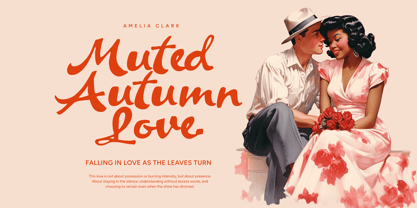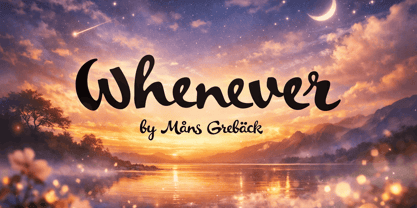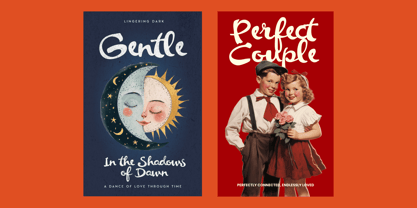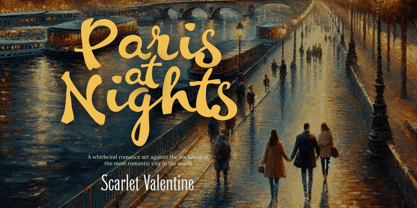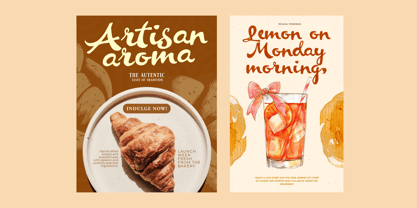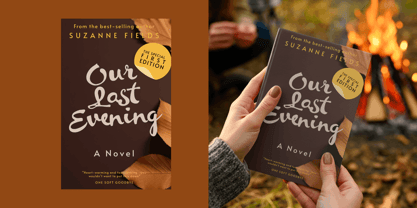
Whenever
by Mans Greback
The Whenever Font Family was designed by Måns Grebäck and published by Mans Greback. Whenever contains 4 styles and family package options. More about this family
Whenever is a relaxed handwritten script with a soft rhythm and an unforced flow. The letters lean gently forward, with rounded shapes and smooth joins that give the text a friendly, personal feel. Strokes are confident but never rigid, creating a balance between clarity and casual charm. There is an easy sense of movement in the forms, as if the words were written at a calm pace, without hurry or correction. The font carries a warm, daydreaming tone. It feels natural in short phrases and longer passages alike, where the subtle variation between letters keeps the text alive without drawing attention to itself. The font is built with advanced functionality and guaranteed top-notch quality, containing stylistic and contextual alternates, ligatures and more automatic and manual features; all to give you full control and customizability. It has extensive lingual support, covering all Latin-based languages, from North Europa to South Africa, from America to South-East Asia. It contains all characters and symbols you'll ever need, including all punctuation and numbers. Whenever was drawn with a focus on comfort and continuity rather than perfection. It aims to capture the feeling of writing something down simply because you want to, letting the hand move freely and trusting the shapes to fall into place.